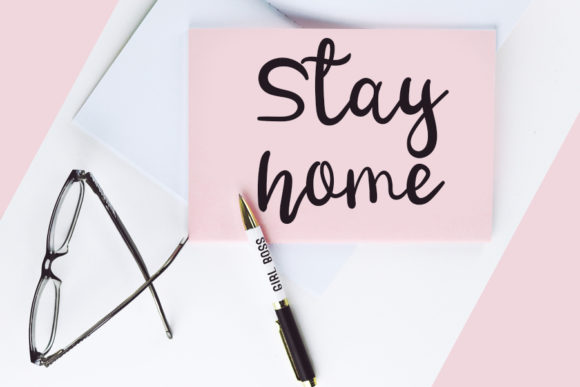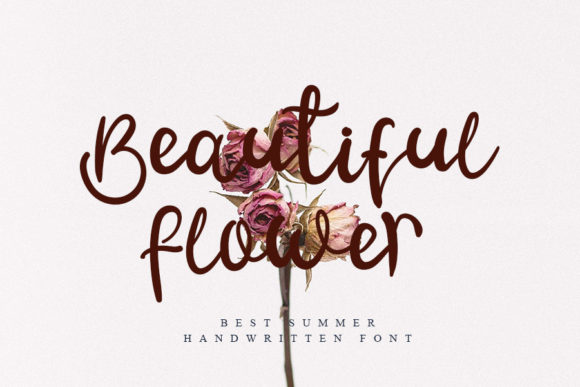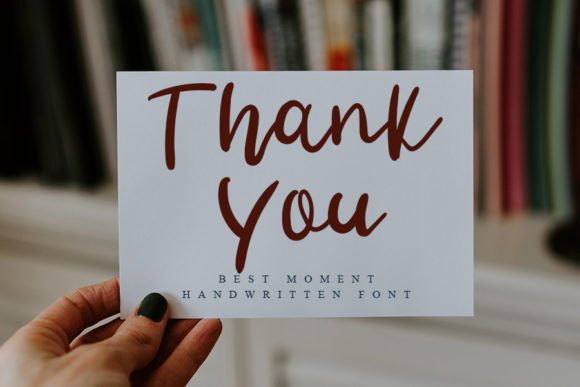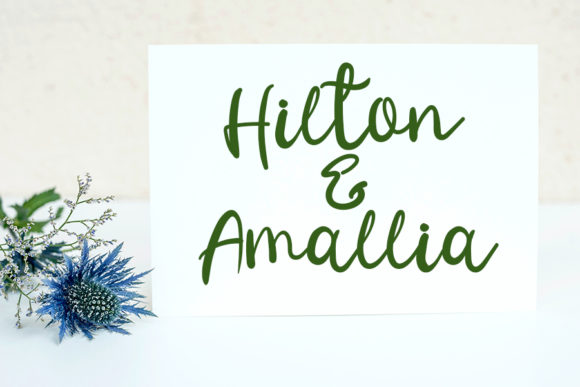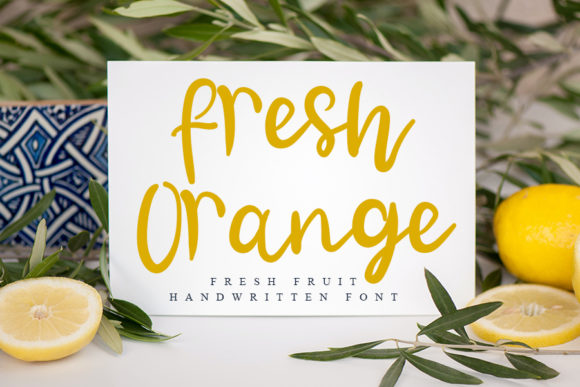
About Husttone Font
Introducing “Husttone,” a flowing handwritten font characterized by an elegant touch that radiates energy and style. Its captivating beauty makes it an ideal choice for a wide range of design projects, infusing a touch of handcrafted charm into every creation. Whether you’re working on branding, quotes, invitations, or any other design, “Husttone” will captivate your heart with its distinct and timeless allure.
With “Husttone,” you have a font that flows with dynamic grace. Its handwritten style brings an air of authenticity and flair to your designs, creating a visual experience that is both elegant and captivating. Whether you’re crafting impactful quotes, modern branding, or striking event materials, this font adds an element of energy that resonates with your audience.
“Husttone” is characterized by its distinct and timeless appearance, making it a versatile companion for your creative endeavors. Its ability to seamlessly complement various design styles and themes is truly exceptional.
Unleash your creativity and watch how “Husttone” elevates your designs with its elegant and flowing touch. Whether you’re creating attention-grabbing logos, designing engaging stationery, or producing eye-catching social media graphics, this font will infuse your work with a sense of beauty and authenticity that captures attention.
So, embrace the allure of “Husttone” and allow it to inspire your dynamic creativity. Let its flowing and elegant style guide your designs, transforming them into spectacular works of art. Whether you’re an experienced designer or a passionate enthusiast, “Husttone” empowers you to create visuals that stand out and make a statement. Let “Husttone” be the key to unlocking a world of energy and style in your designs, and watch as it propels your projects to new heights of excellence and distinction!